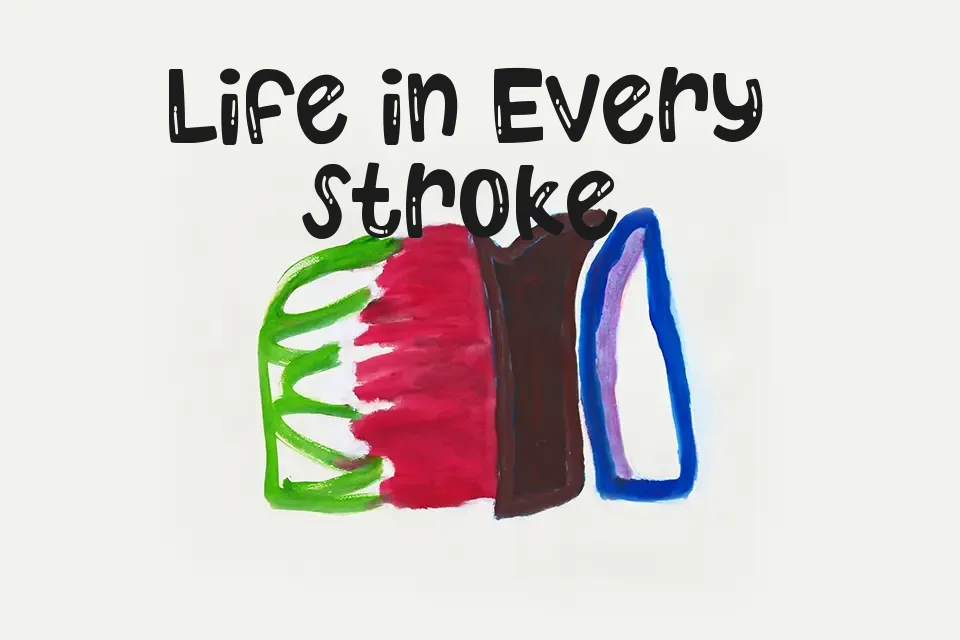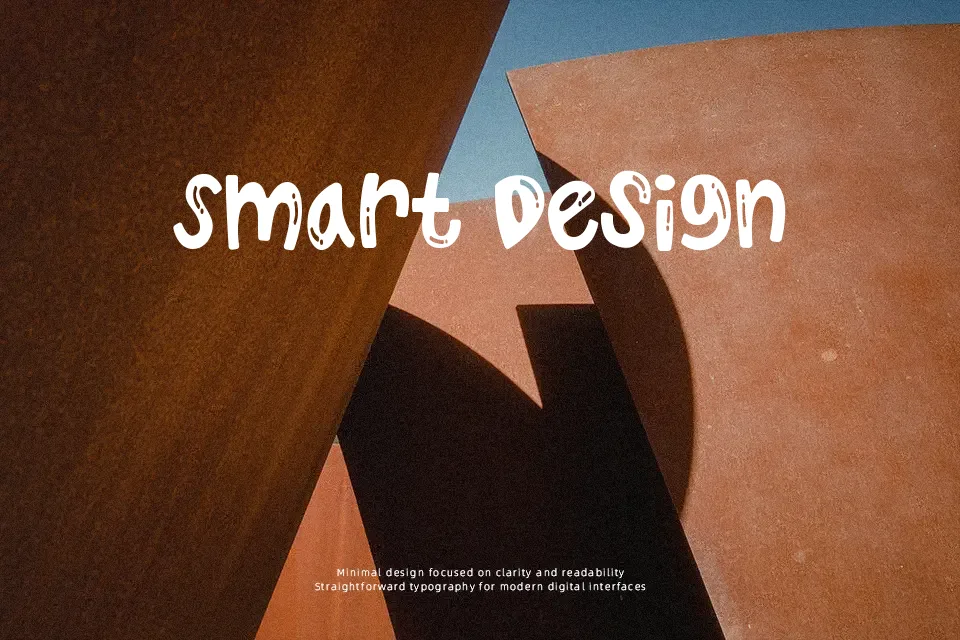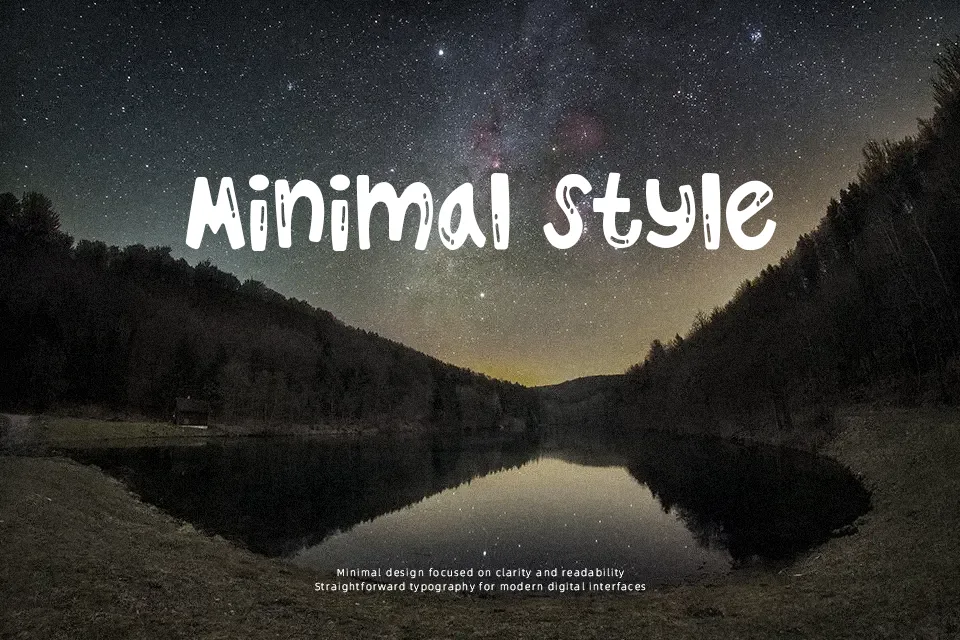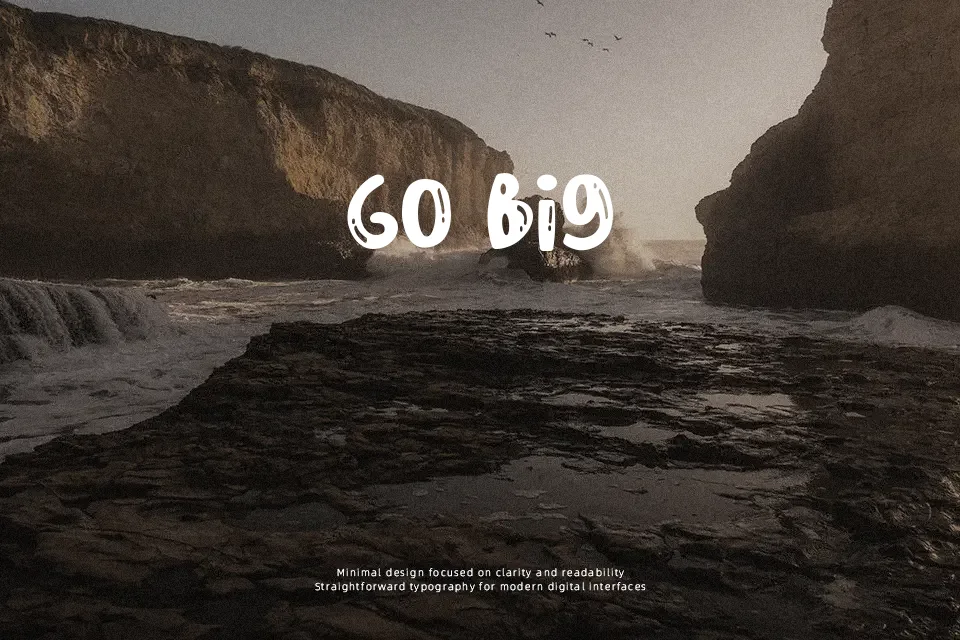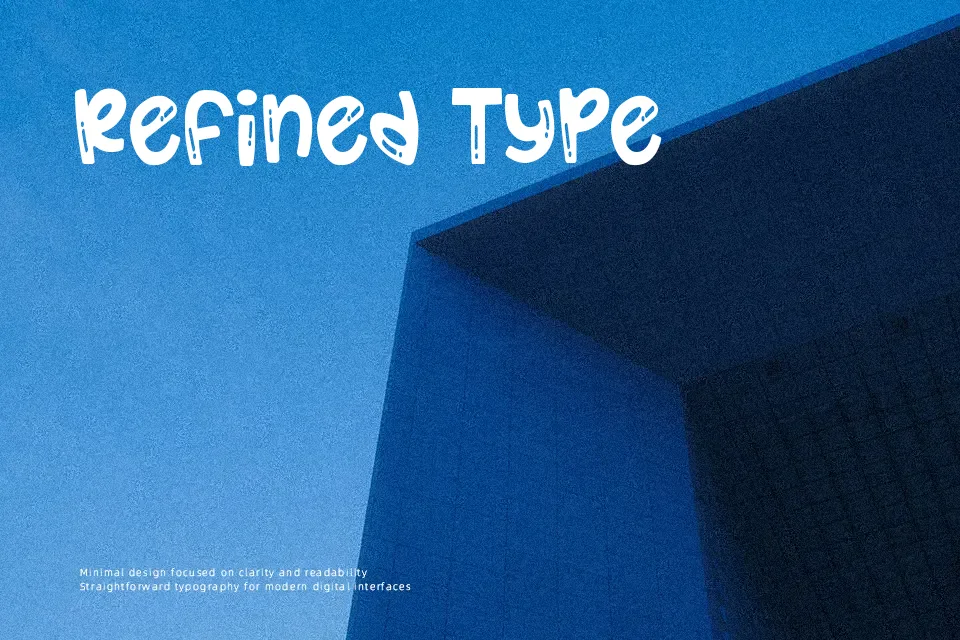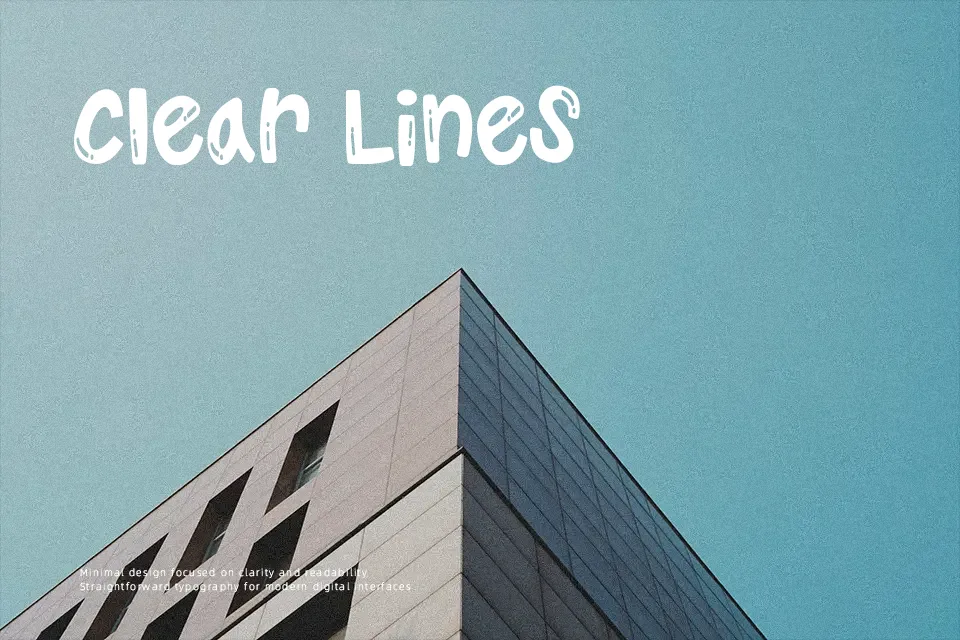
Playon Font
Playon Font uses thick, rounded forms and smooth, bubble-like contours to create a friendly cartoon display style. The letterforms have broad proportions, low stroke contrast, and a close visual rhythm that gives short words a solid, compact presence. Its uppercase and lowercase characters maintain a consistent playful weight, while the visible numerals and punctuation follow the same soft construction. The spacing helps headlines remain recognizable at larger sizes, especially in colorful layouts. However, the dense rounded shapes become less comfortable in small text or extended passages. It is a practical choice for children’s graphics and bold, informal labels.
Best For: children’s party invitations,cartoon poster headlines,playful product packaging,kids’ apparel graphics